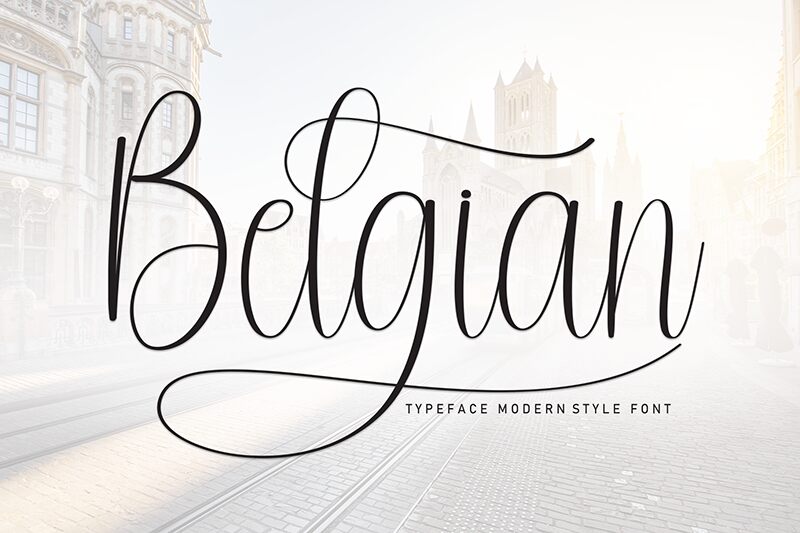
Belgian font by Andi Moz is a free flowing handwritten font combining modern, elegant, and sophisticated elements. Its decorative and refined calligraphic style gives this expressive typeface an ultimately graceful character. Soft curves, refined connecting strokes, and a smooth cursive flow allow for beautiful lettering elements.
The font is suitable for use in branding, logo design, packaging, greeting cards, invitations, and business cards. Use it for quotes, social media, on apparel, or even websites whenever in need of a sophisticated free font.
This is a sweet and friendly handwritten display font. Cute and fun, this free font is ideal for writing wedding invitations, cards, or any other design that might need a playful touch.